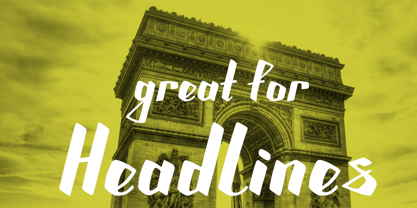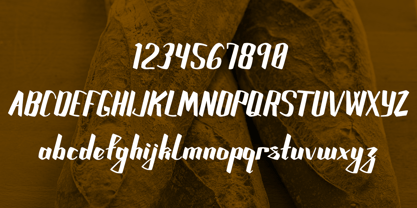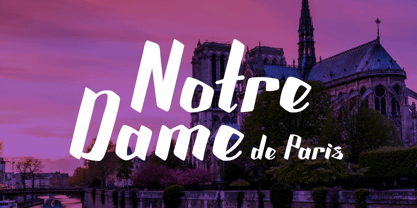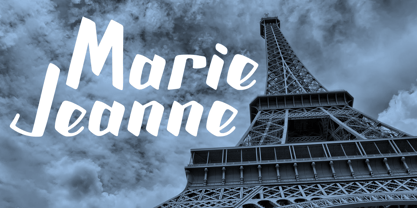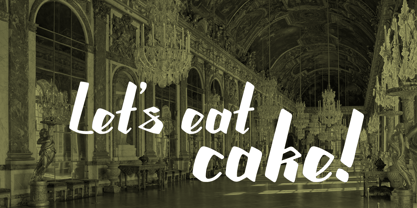
Marie Jeanne Font
Marie Jeanne is a handmade font created with a casual feel that works well at larger sizes in headers or titles. Also works great in branding applications.